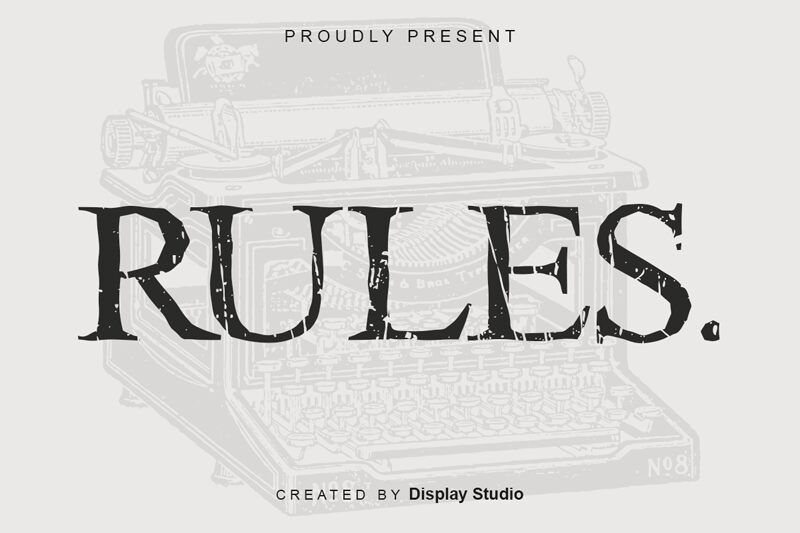
RULES
Get ready to break the RULES with this edgy, eroded serif font designed by Display Studio. Perfect for adding a touch of rebellion to your designs, this display font is ideal for projects that require a bold statement, such as posters, album covers, and branding materials. The rough edges of the serif letters create a distressed look that adds character and depth to any design. Whether you're looking to make a statement or just want to stand out from the crowd, RULES is the perfect font for all your creative needs.